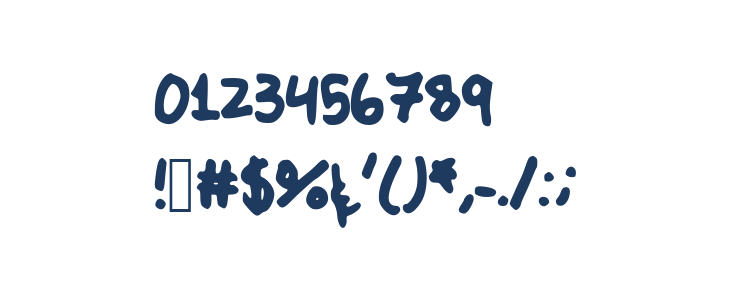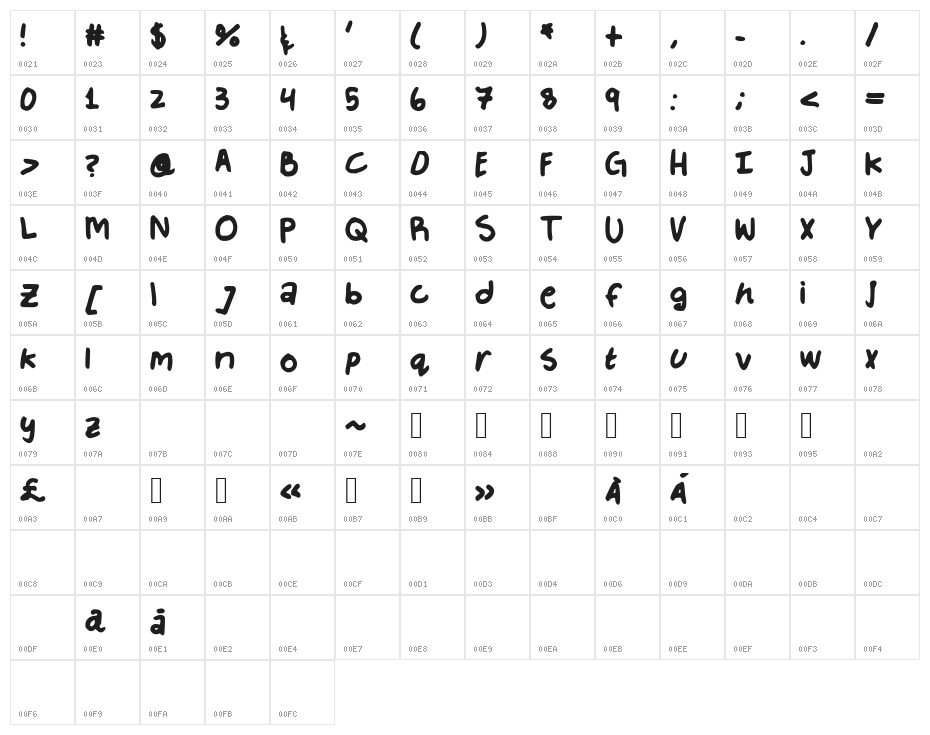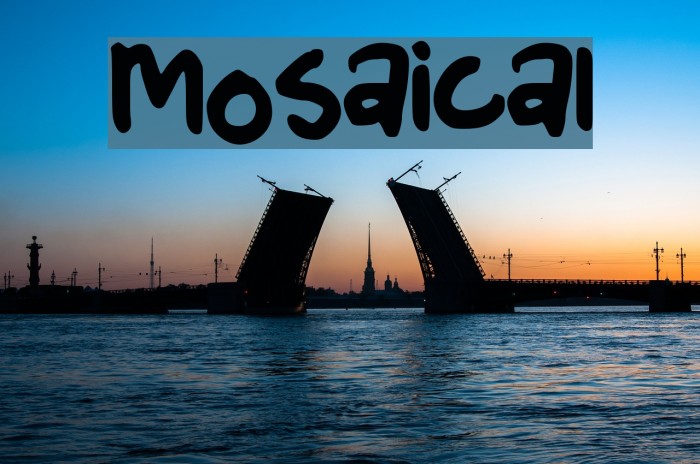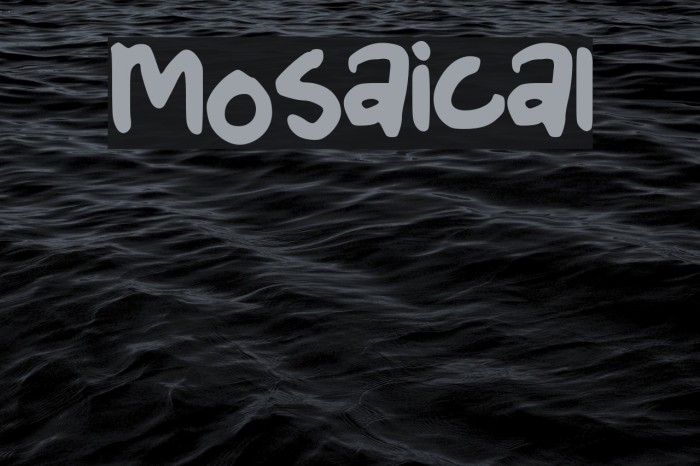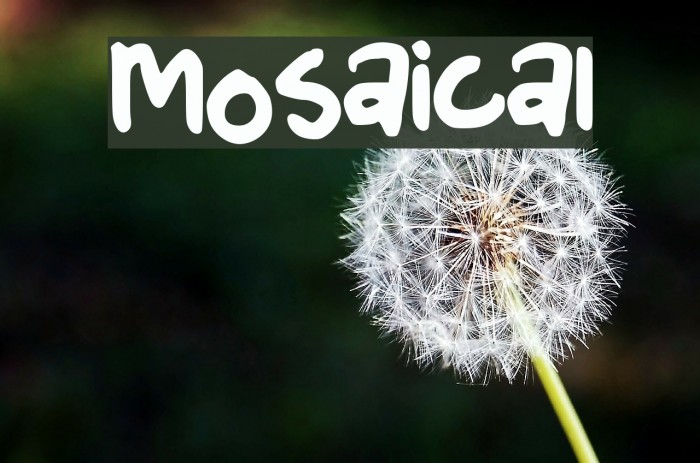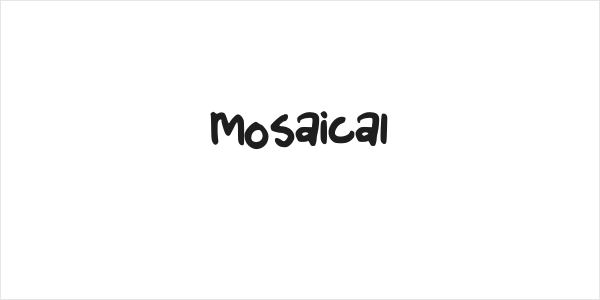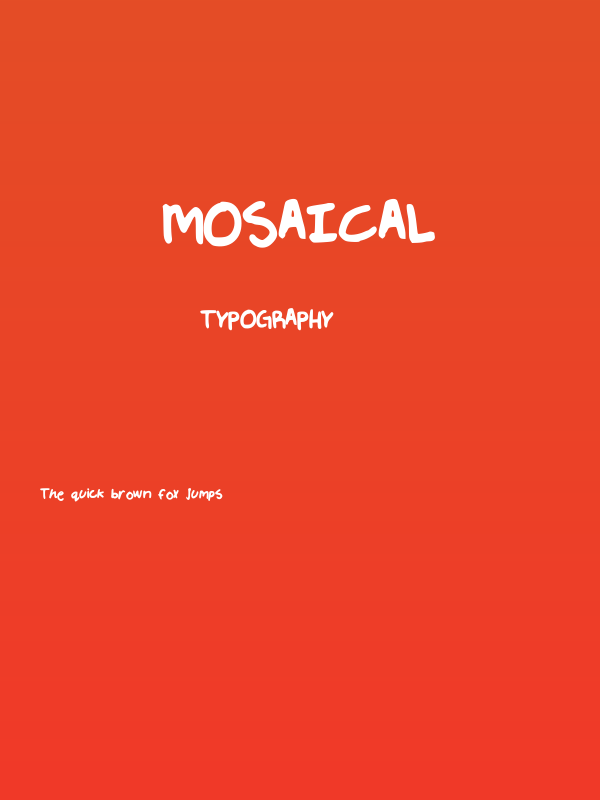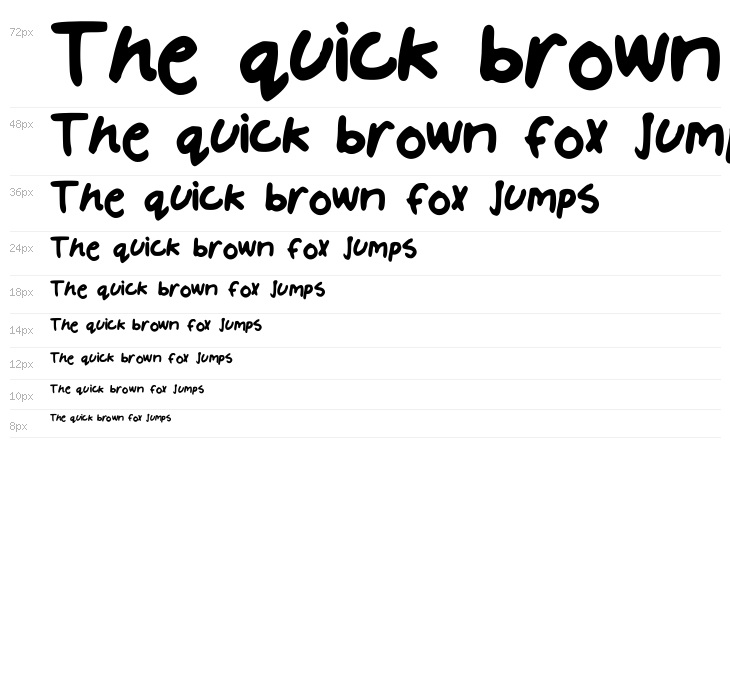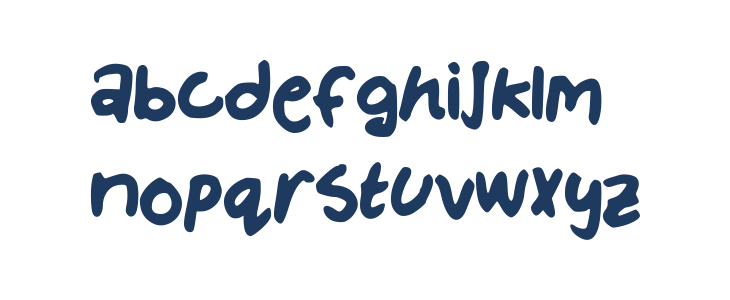
Mosaical Font
Mosaical Description
This font features a playful, handwritten style with bold, rounded strokes that give it a friendly and approachable appearance. The characters are slightly irregular, adding to the casual and informal feel. The uppercase and lowercase letters maintain a consistent style, with a slight slant that suggests movement and energy. The numerals and special characters are equally bold and rounded, ensuring readability and coherence throughout. This font is ideal for projects that require a personal touch, such as greeting cards, children's books, or informal branding.
| Use Case | Headlines, Informal text, Branding |
| Proposed Projects | Greeting cards, children's books, informal branding, playful posters. |